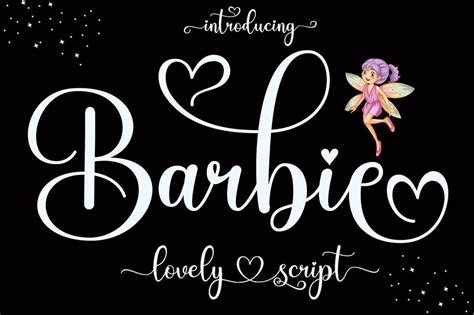
Barbie Font Script. Web transform your text into a stunning font style with our innovative text effect generator. Web you can download the font for free here.
Every font is free to download! Web transform your text into a stunning font style with our innovative text effect generator. The actual font used by. Web the barbie font is a handwritten script and has a playful, elegant, and classic feel. Click to find the best 11 free fonts in the barbie style. Web you can download the font for free here. Embrace the nostalgia of the 1970s and.
Web transform your text into a stunning font style with our innovative text effect generator. The actual font used by. Web you can download the font for free here. Click to find the best 11 free fonts in the barbie style. Embrace the nostalgia of the 1970s and. Every font is free to download! Web the barbie font is a handwritten script and has a playful, elegant, and classic feel. Web transform your text into a stunning font style with our innovative text effect generator.